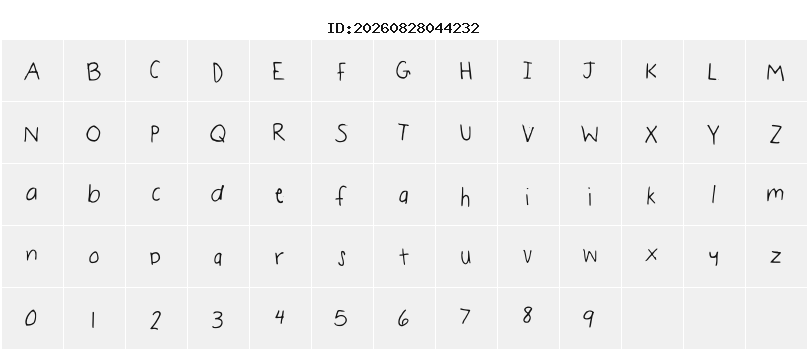
Trick-Or-Treat Preview
• Font Name: Trick-Or-Treat
• Font Style: Or-Treat
• Full Font Name: Trick-Or-Treat
About Trick-Or-Treat.ttf
Trick-Or-Treat.ttf is a modern, elegant sans-serif font designed for ultimate readability and visual harmony. Perfect for branding, headlines, web design, and print materials.